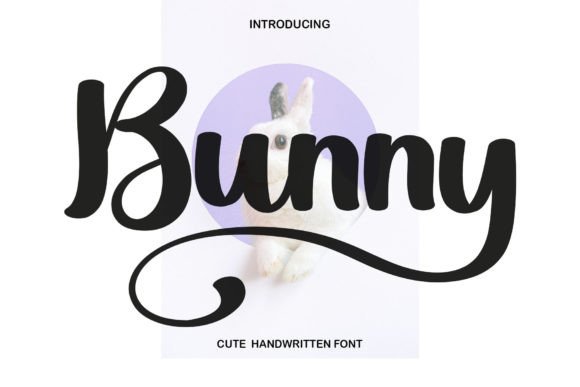
Bunny Font: Elevate Your Designs with Elegance and Sophistication
In the world of typography, fonts play a crucial role in conveying the tone and personality of a design. For designers and crafters seeking to add a touch of elegance and class to their projects, the Bunny Font is an excellent choice. This trendy handwritten font boasts a contemporary atmosphere and impeccable form, inspired by timeless classic calligraphy.
The Inspiration Behind Bunny Font
Bunny Font draws inspiration from traditional calligraphy, with a modern twist. Its creator aimed to craft a font that would not only pay homage to the classics but also cater to the needs of modern designers. The result is a font that exudes sophistication and refinement, perfect for a wide range of design applications.
Key Features of Bunny Font
- Trendy and Handwritten: Bunny Font features a handwritten style that is both trendy and versatile. Its unique character makes it stand out from more traditional fonts.
- Contemporary Atmosphere: Despite being inspired by classic calligraphy, Bunny Font has a distinctly contemporary feel. This makes it suitable for designers looking for a font that feels modern and fresh.
- Impeccable Form: The font’s impeccable form ensures that it remains legible and aesthetically pleasing, even at various sizes. This is crucial for designs that require a font to perform well across different applications.
- Elegance and Class: Bunny Font is designed to add an element of elegance and class to any design project. Whether you’re working on a luxury brand’s logo, a wedding invitation, or a high-end product label, this font can help elevate the overall aesthetic.
Versatility of Bunny Font
One of the significant advantages of Bunny Font is its versatility. This font can be used for a wide variety of products and design projects. Here are some examples of how you can utilize Bunny Font:
- Branding and Logos: Create a lasting impression with a logo that features Bunny Font. Its elegant and modern style makes it perfect for businesses looking to establish a sophisticated brand identity.
- Stationery and Invitations: Add a touch of class to your stationery, wedding invitations, or greeting cards. Bunny Font’s beautiful handwritten style will make your designs stand out.
- Product Packaging: For crafters and product designers, Bunny Font can be used to create labels, packaging, and product descriptions that convey a sense of luxury and attention to detail.
- Digital Content: Bunny Font is also suitable for digital content, including website headers, social media graphics, and email newsletters. Its legibility and aesthetic appeal make it an excellent choice for online designs.
Why Choose Bunny Font?
With so many fonts available, why should designers and crafters choose Bunny Font for their projects? Here are a few compelling reasons:
- Unique Style: Bunny Font offers a unique style that can help your designs stand out from the crowd. Its blend of classic inspiration and modern flair makes it a versatile choice.
- Support for Various Languages: For designers working on international projects, Bunny Font offers support for multiple languages, ensuring that your designs can reach a global audience.
Bunny Font is a stylish and versatile handwritten font that can add a touch of elegance and sophistication to any design project. Its contemporary atmosphere, impeccable form, and classic inspiration make it an excellent choice for designers and crafters looking to create high-quality designs. Whether you’re working on branding, stationery, product packaging, or digital content, Bunny Font is sure to meet your needs and elevate your designs to the next level.